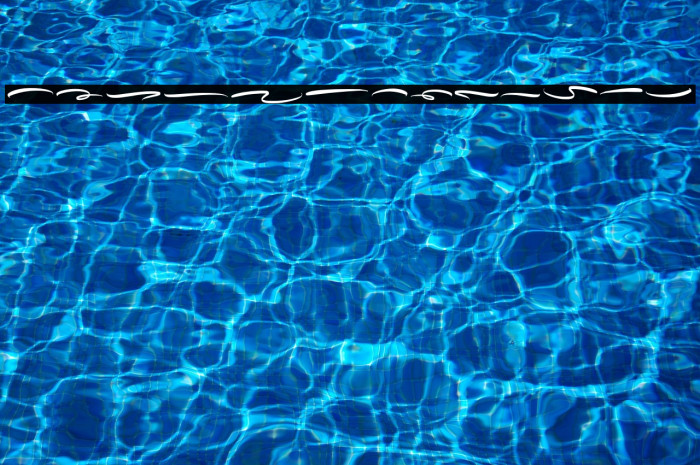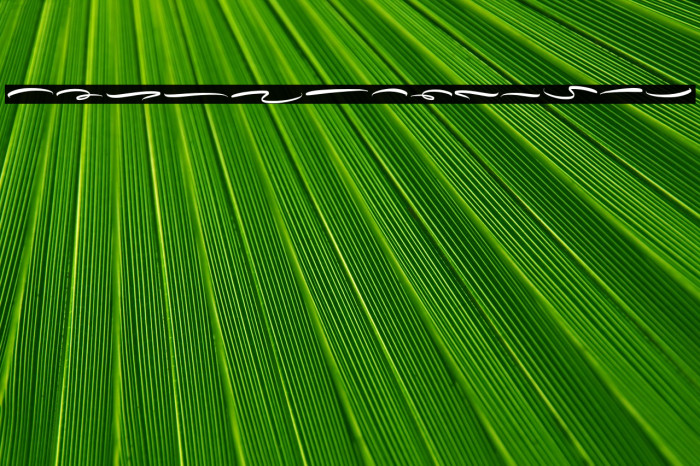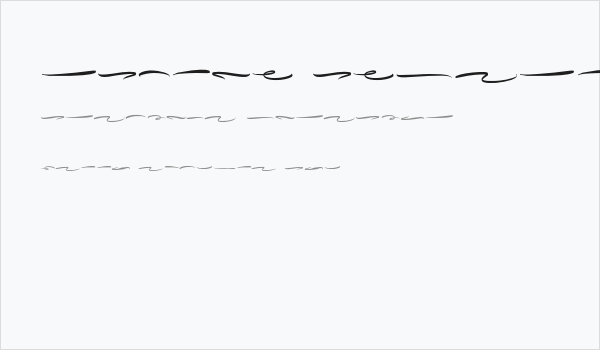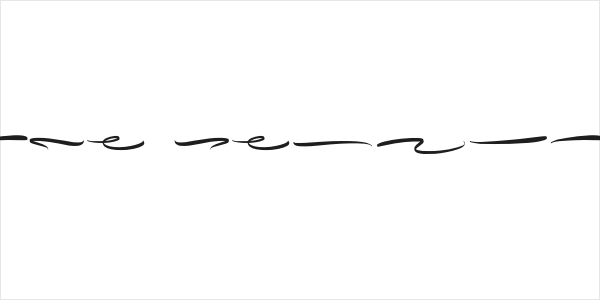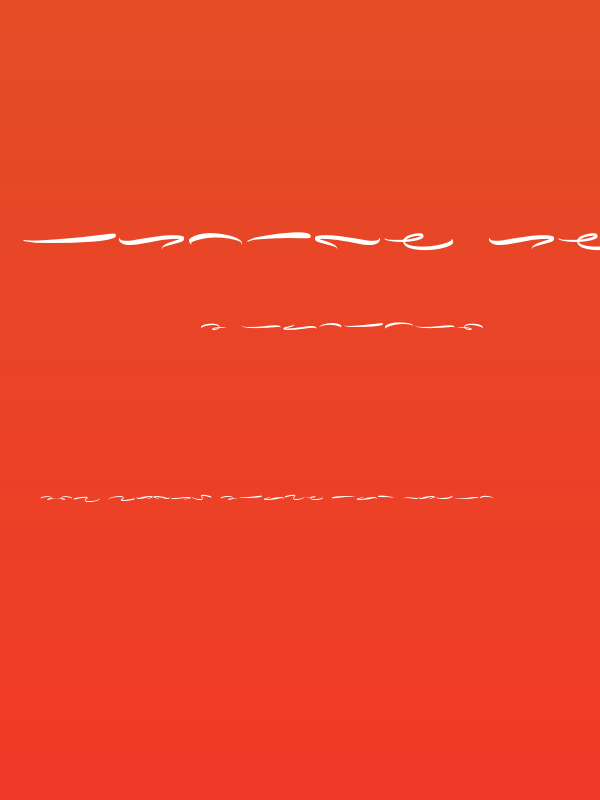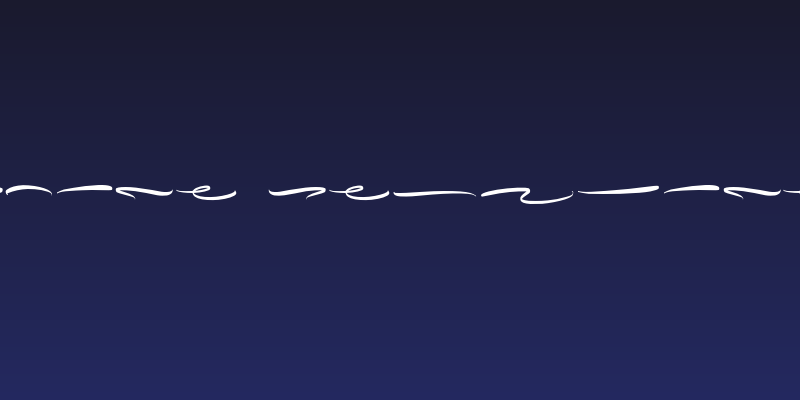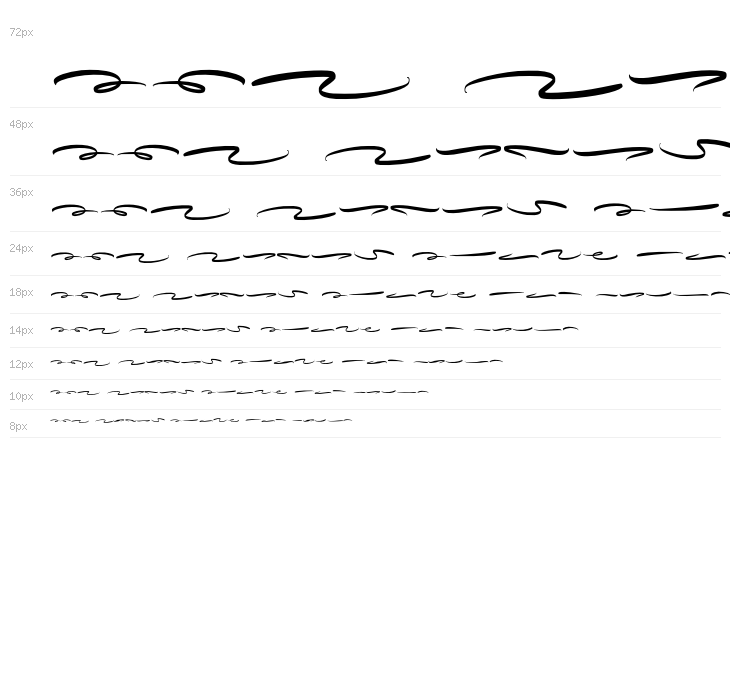
RuslinyUnderline Font
RuslinyUnderline Description
This is not a valid font. The image contains decorative underline elements that are stylized with flowing, cursive-like strokes. These elements are designed to add an elegant touch to text but do not represent a complete set of alphanumeric characters or symbols typically found in a font. The lines have a hand-drawn appearance with varying thickness, creating a dynamic and artistic effect. They are suitable for embellishing documents, invitations, or any design that requires a sophisticated underline.
| Use Case | Decorative underlines for documents and invitations. |
| Proposed Projects | Ideal for embellishing invitations, certificates, or artistic documents where a decorative underline is needed. |